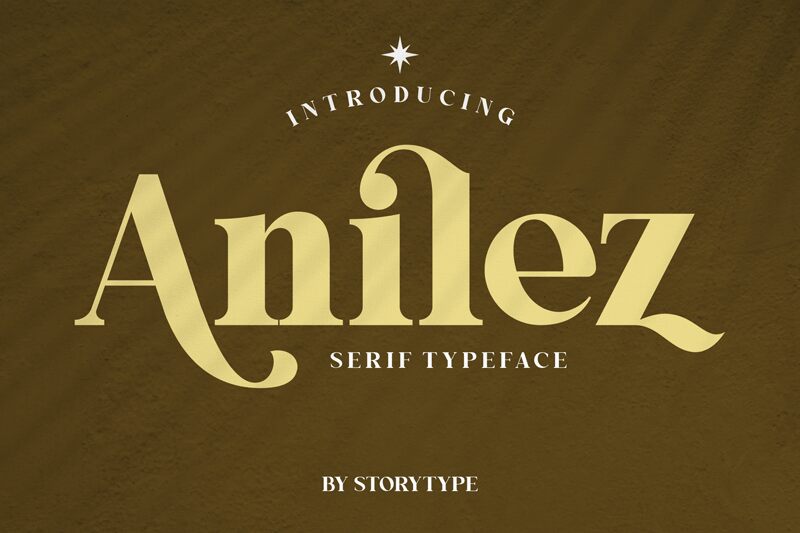
Anilez
Anilez, crafted by Storytype Studio, is a captivating serif font that exudes elegance and strength. With its bold weight, Anilez lends an air of authority and sophistication to any project it graces. Perfect for fashion editorials, luxury branding, or book covers seeking a touch of grandeur, this typeface demands attention and leaves a lasting impression. Its crisp serifs and refined lines make it ideal for conveying timeless beauty in logo designs or adding a touch of class to invitations and greeting cards. Let Anilez elevate your creations with its commanding presence and timeless appeal.